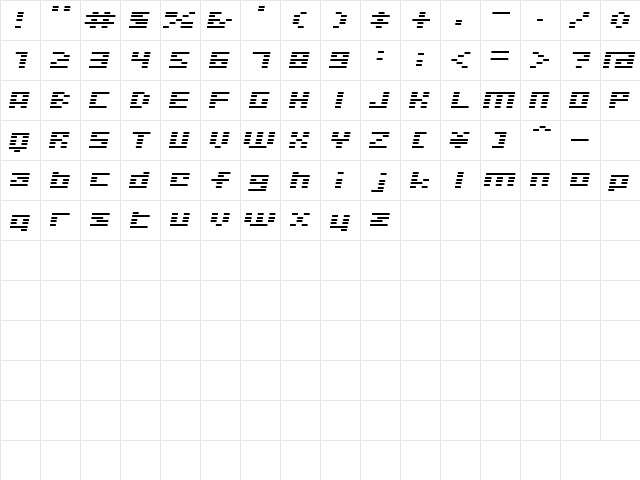
D3 Digitalism Italic Regular
Design Context for D3 Digitalism Italic Typeface
D3 Digitalism Italic has a distinctly futuristic character, with geometric precision and clean angles that feel at home in technology, gaming, and sci-fi contexts. Its italic angle brings a sense of urgency and motion to the letterforms.
Pro Tip: Use D3 Digitalism Italic in combination with a neutral sans for body text. Let it define the brand voice in headlines while keeping reading comfortable elsewhere.